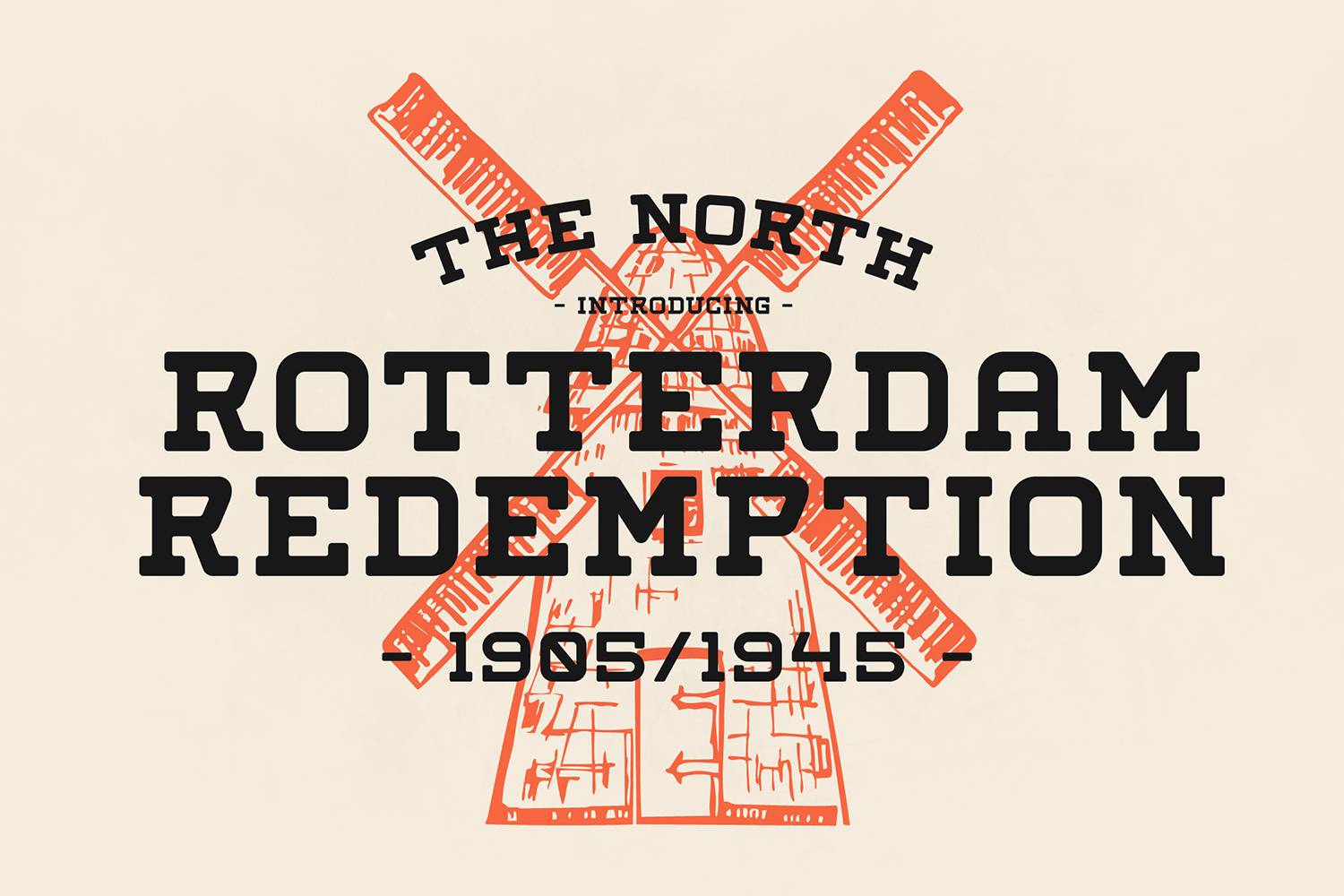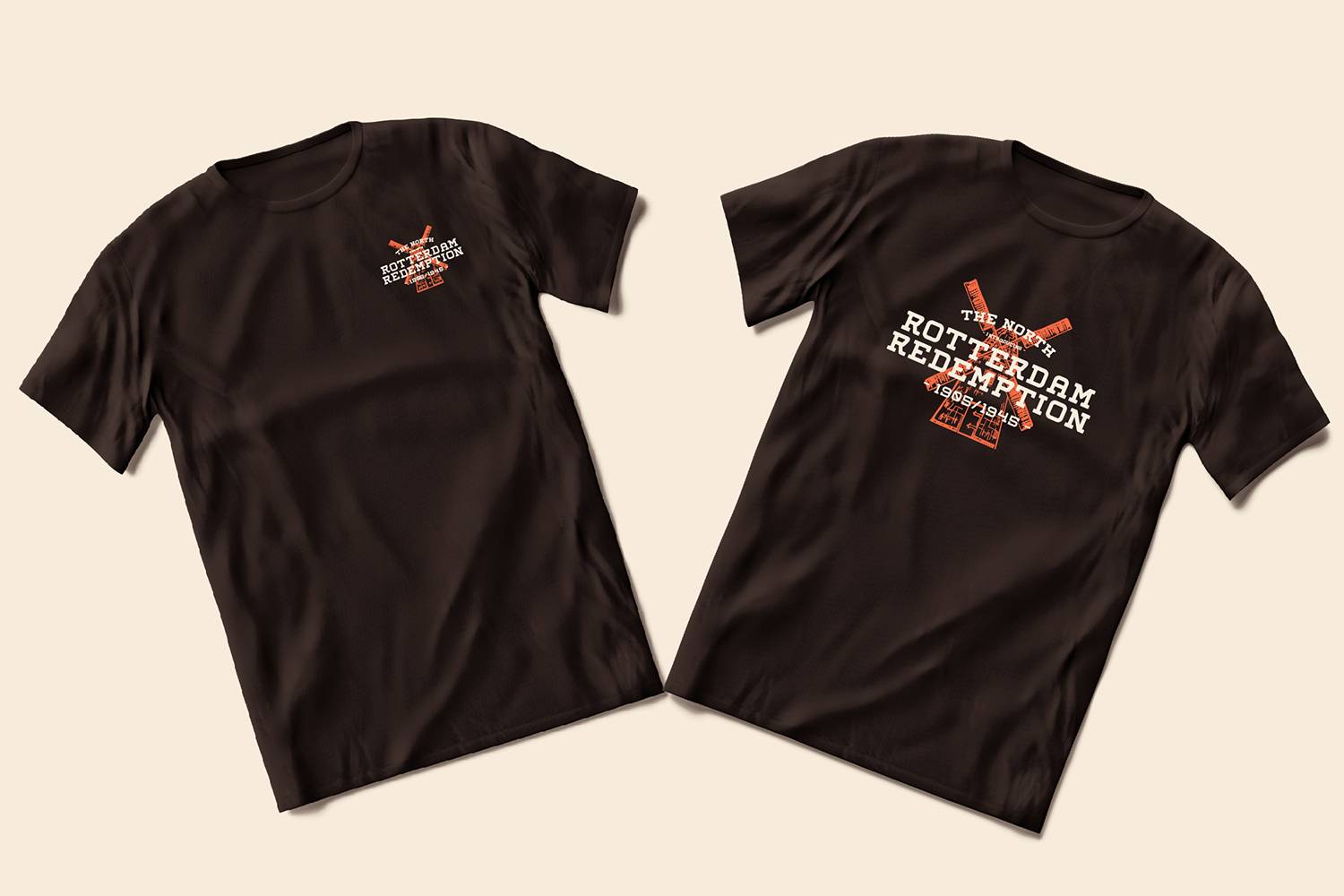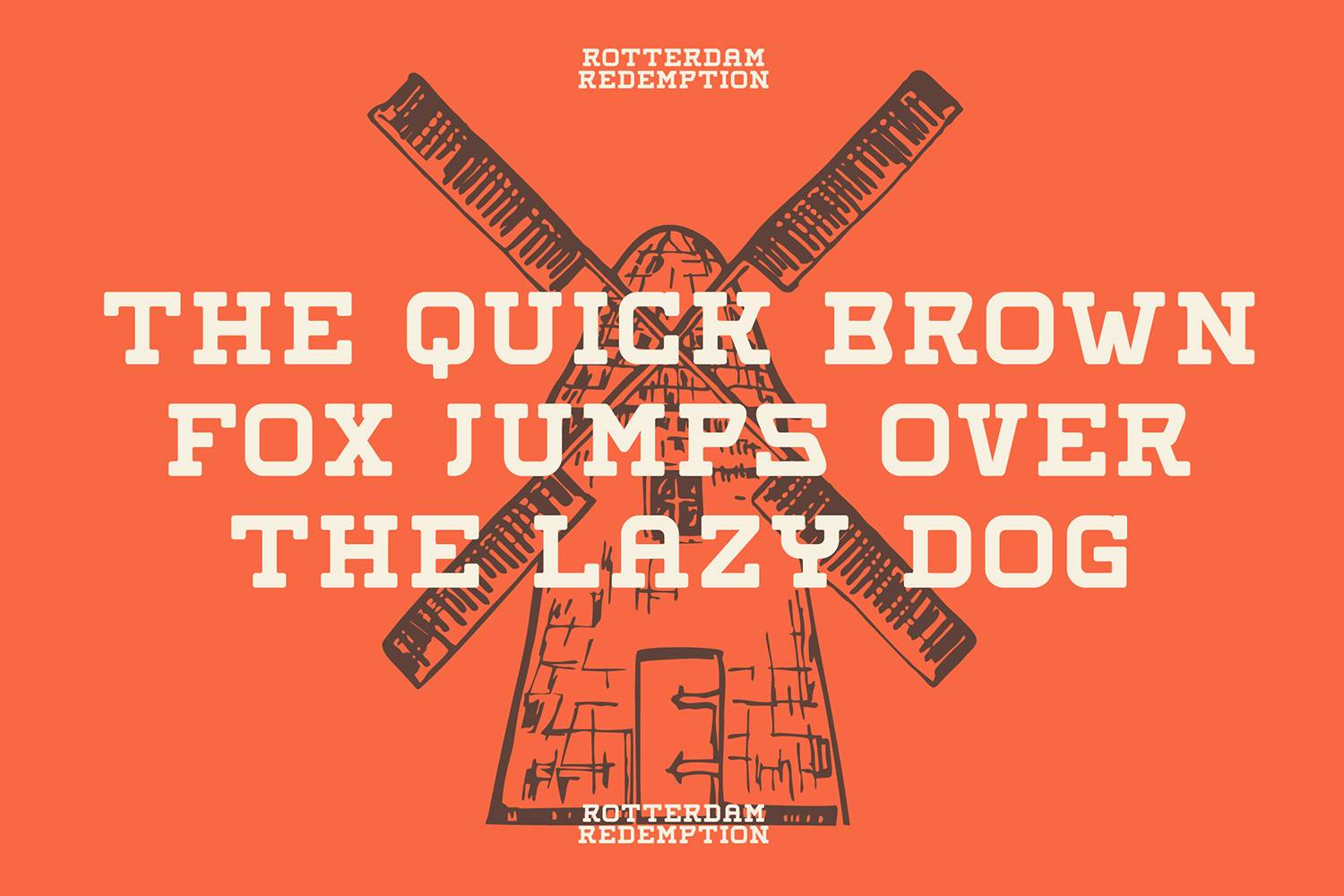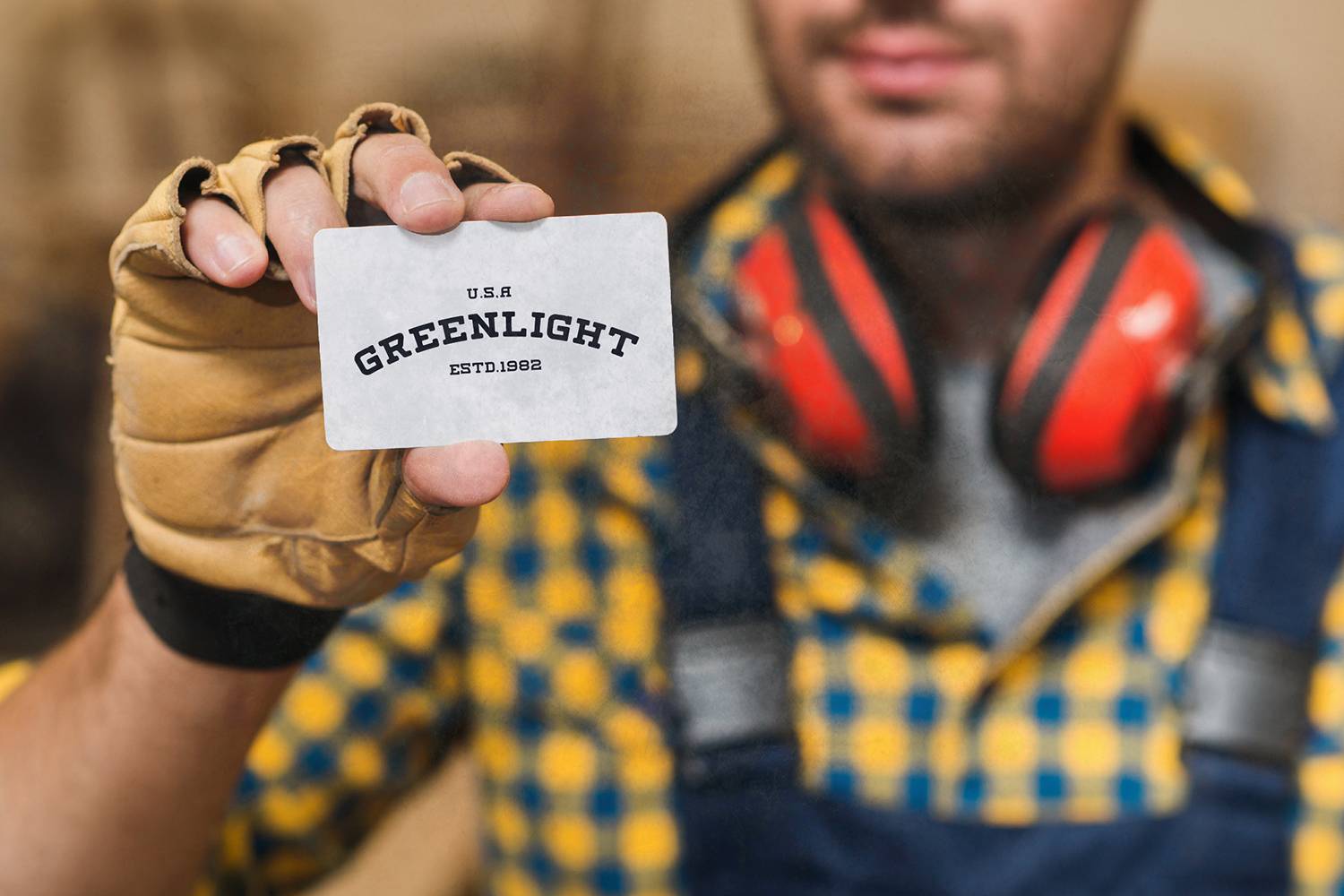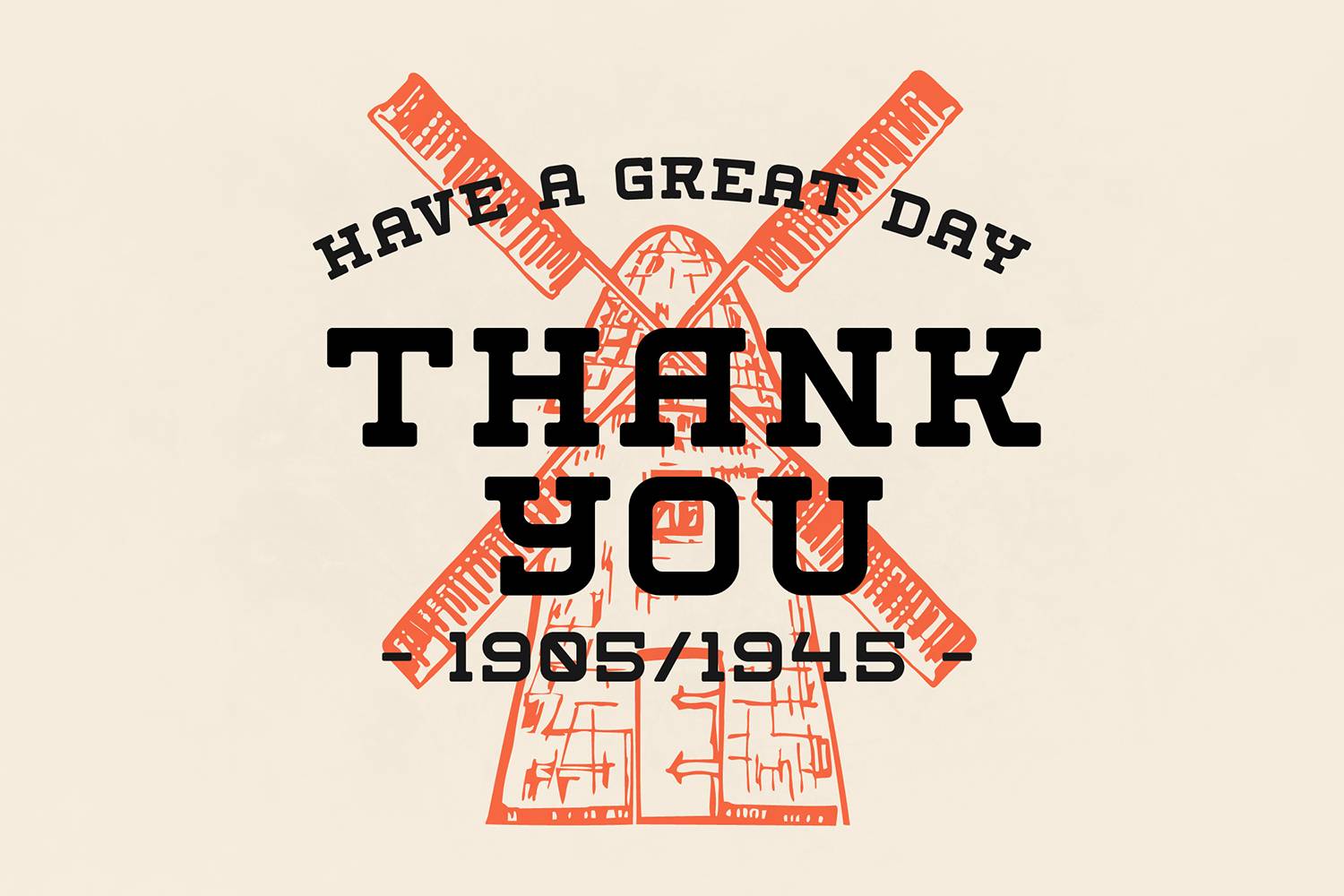
Rotterdam Redemption is a bold, slab serif font with a strong industrial feel, characterized by its sturdy, blocky letterforms and thick, bracketed serifs. This all-caps typeface offers a balanced, slightly condensed width and a solid presence, making it ideal for headlines, logos, and branding that require a rugged and vintage-inspired look. Its clear, geometric shapes and consistent stroke contrast give it a versatile edge, perfect for conveying strength and reliability in print and digital designs.
Rotterdan Redemption Font
About Rotterdan Redemption Font
| Font family | Rotterdan Redemption Font |
| Category | Slab-serif |